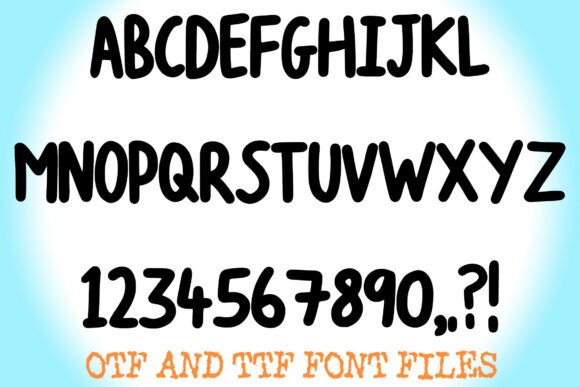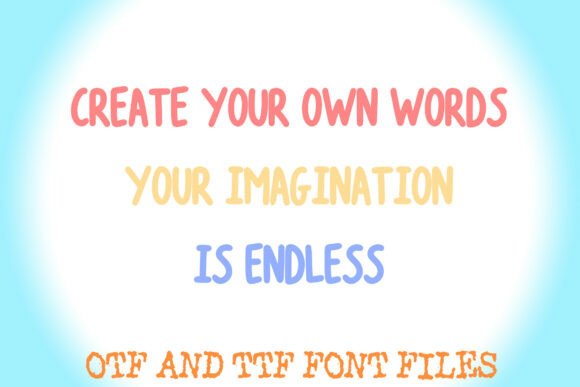
Round Kid Doodle Font – Free Download
Introduction to Round Kid Doodle Font
Infuse your designs with childlike charm using Round Kid Doodle Font.
This adorable typeface captures the whimsical, hand-drawn feel of happy doodles by a child It’s an instant dose of joy, perfect for projects needing a lovable, inviting touch for young audiences.
Key Features of Round Kid Doodle Font
Why Choose Round Kid Doodle Font?
Round Kid Doodle Font offers exceptional quality and versatility, making it a valuable addition to your design toolkit. Whether you’re creating for personal projects or commercial use, Round Kid Doodle Font delivers professional results.